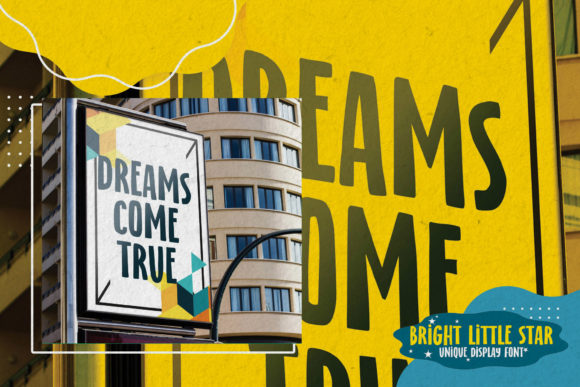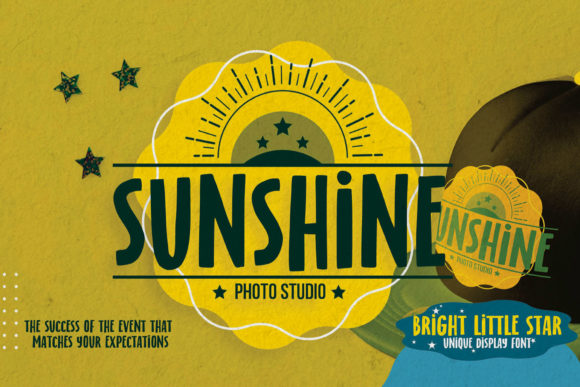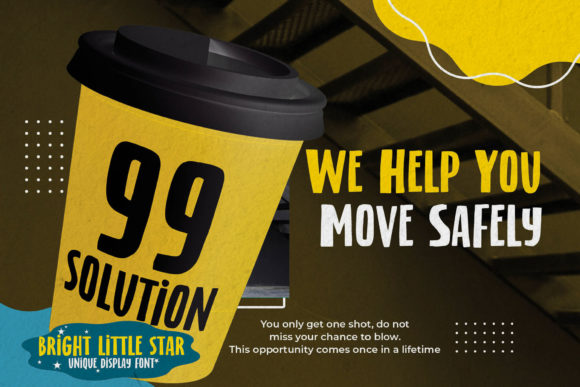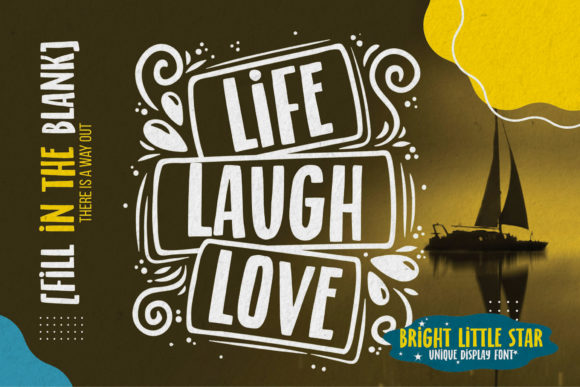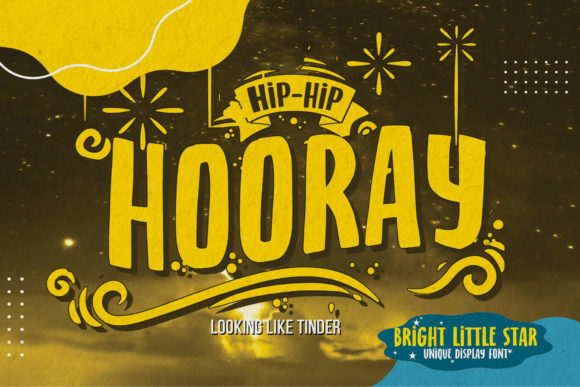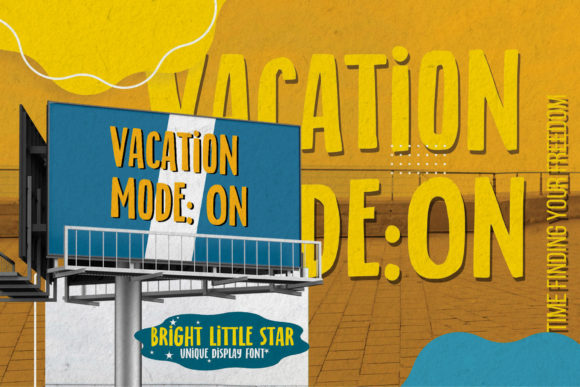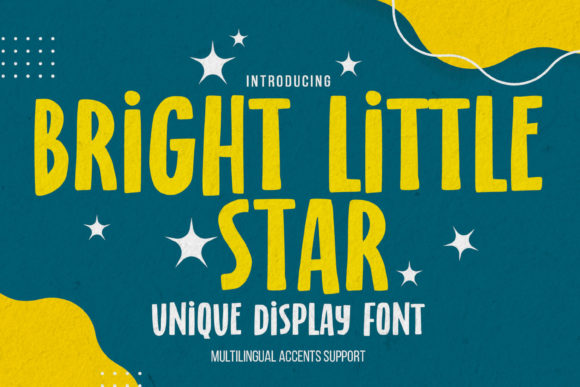
The Magic of Bright Little Star Font: Elevate Your Designs with Elegance
Have you ever been in the middle of a design project, and suddenly, you’re stuck on finding the perfect font? I recall a recent experience where I was working on a client’s wedding invitation, and my usual go-to fonts just weren’t cutting it. The design needed something elegant, unique, and downright charming. That’s when I stumbled upon the Bright Little Star font, and let me tell you, it was love at first sight! ✨
An Honest Review of Bright Little Star Font
- ✨ Elegant and sophisticated, perfect for high-end designs
- ✅ Unique character set that adds a touch of whimsy to any project
- 🔥 Highly versatile, suitable for a wide range of applications, from watermarks to wedding designs
- 💻 Clean and crisp lines, making it perfect for digital and print designs
While Bright Little Star Font is an amazing addition to any design project, there are a few things to keep in mind: 🤔
- ⚠️ Limited availability of stylistic alternates, which might limit some design options
- ⚠️ May not be the best fit for very bold or dramatic designs, as it’s more elegant than edgy
The Backstory of Bright Little Star Font
Bright Little Star Font was designed with the intention of creating a unique, elegant, and versatile typeface that would add a touch of magic to any design project. Inspired by the night sky and the twinkle of stars, this font is perfect for designers, crafters, and creative hobbyists looking to add a little extra sparkle to their work.
Q: What type of designs is Bright Little Star Font best suited for?
A: Bright Little Star Font is perfect for a wide range of designs, including watermarks, logos, branding, invitations, advertisements, product designs, stationery, wedding designs, labels, product packaging, and more.
Q: Is Bright Little Star Font available in different weights or styles?
A: Currently, Bright Little Star Font is available in a single weight. However, the font’s unique character set and elegant design make it versatile enough to work well in a variety of design applications.
Q: Can I use Bright Little Star Font for digital and print designs?
A: Absolutely! Bright Little Star Font is clean and crisp, making it perfect for both digital and print designs.